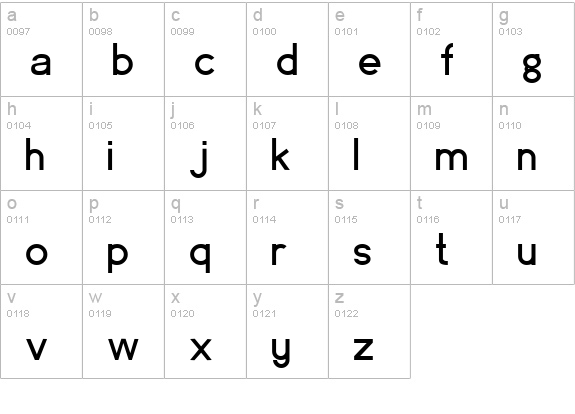
Zaandam Font Details
Zaandam is a stunning and elegant font that exudes sophistication and charm. With its sleek lines and graceful curves, this typeface is perfect for adding a touch of class to any project. Whether you are designing a wedding invitation, creating a logo, or crafting a poster, Zaandam will elevate your work to new heights. What makes Zaandam even more appealing is that it is completely free to download at FontsMarket.com. Yes, you read that right - you can enhance your designs with this exquisite font without spending a penny. So go ahead, unleash your creativity and make your projects shine with Zaandam. Download it now and let your imagination run wild!